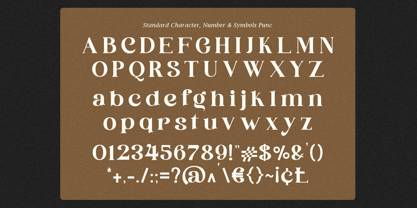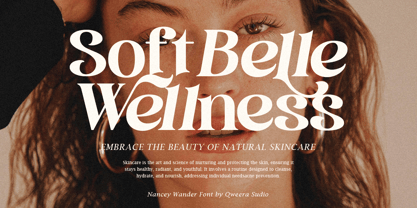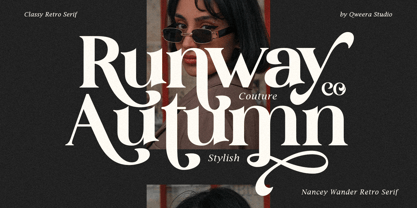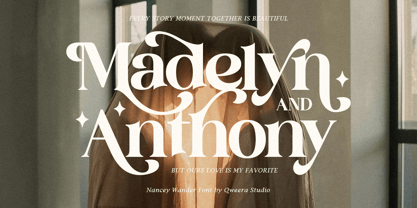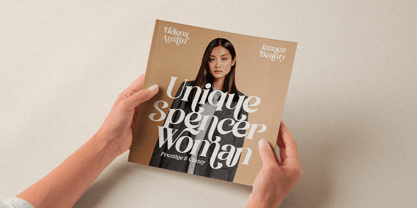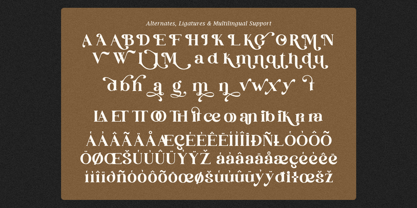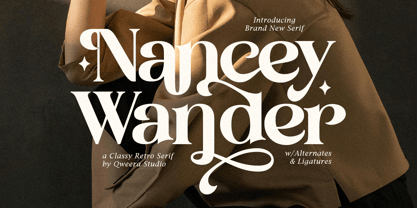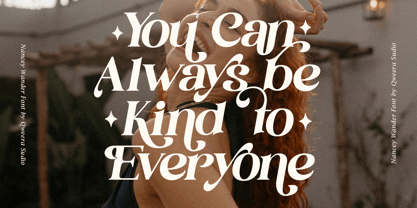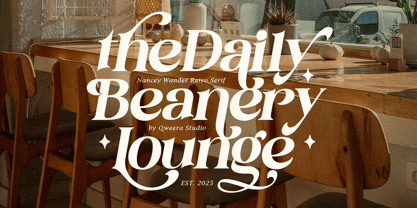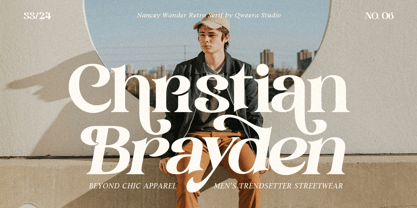
Nancey Wander
by Qweera Studio
Nancey Wander is a classy serif typeface that combines unique bold and thin character transitions, available in both regular and italic styles. This font features stylish alternates and ligatures, offering ultimate flexibility to create designs tailored to your vision effortlessly.
Perfect for posters, magazines, and print designs, Nancey Wander brings a touch of elegance and sophistication to any project. Its timeless appeal and versatile style make it an excellent choice for creating visually stunning layouts with ease.
Elevate your designs with Nancey Wander – where creativity meets elegance in every detail!
• Regular & Italic
• All Multilingual symbol
• Opentype features ( ligature, alternate )